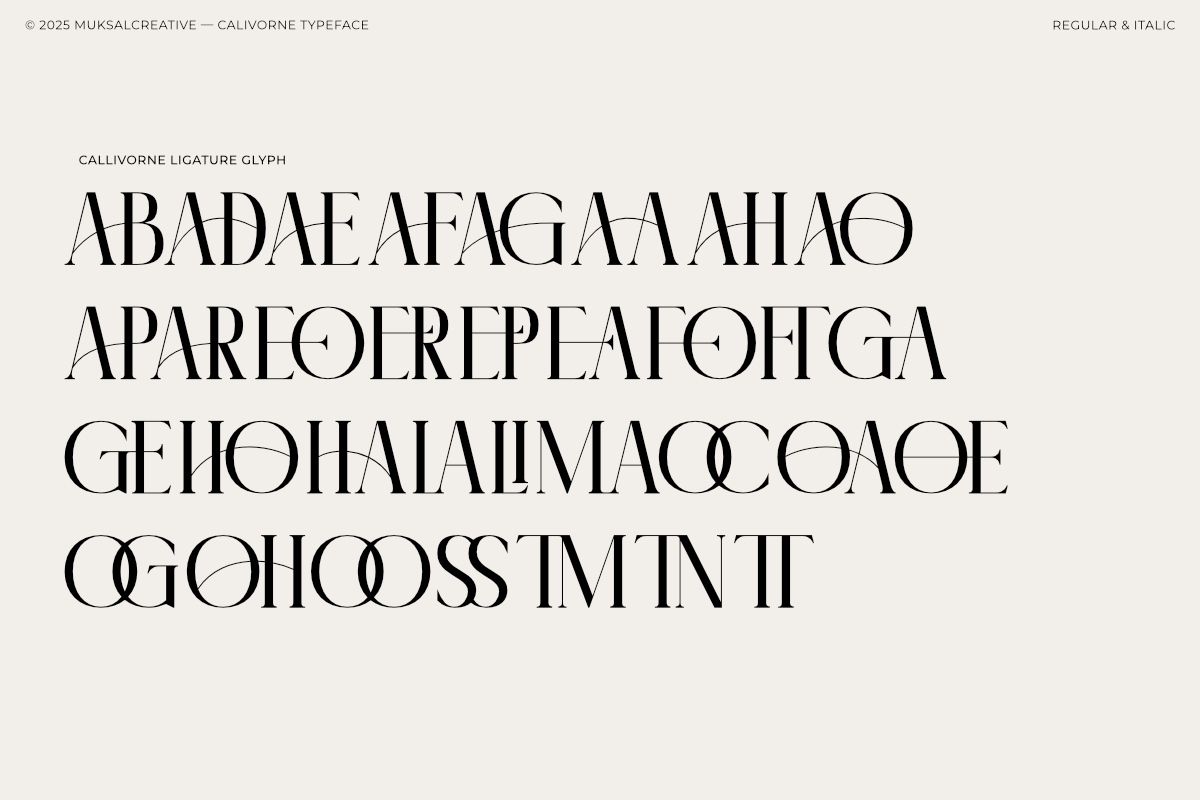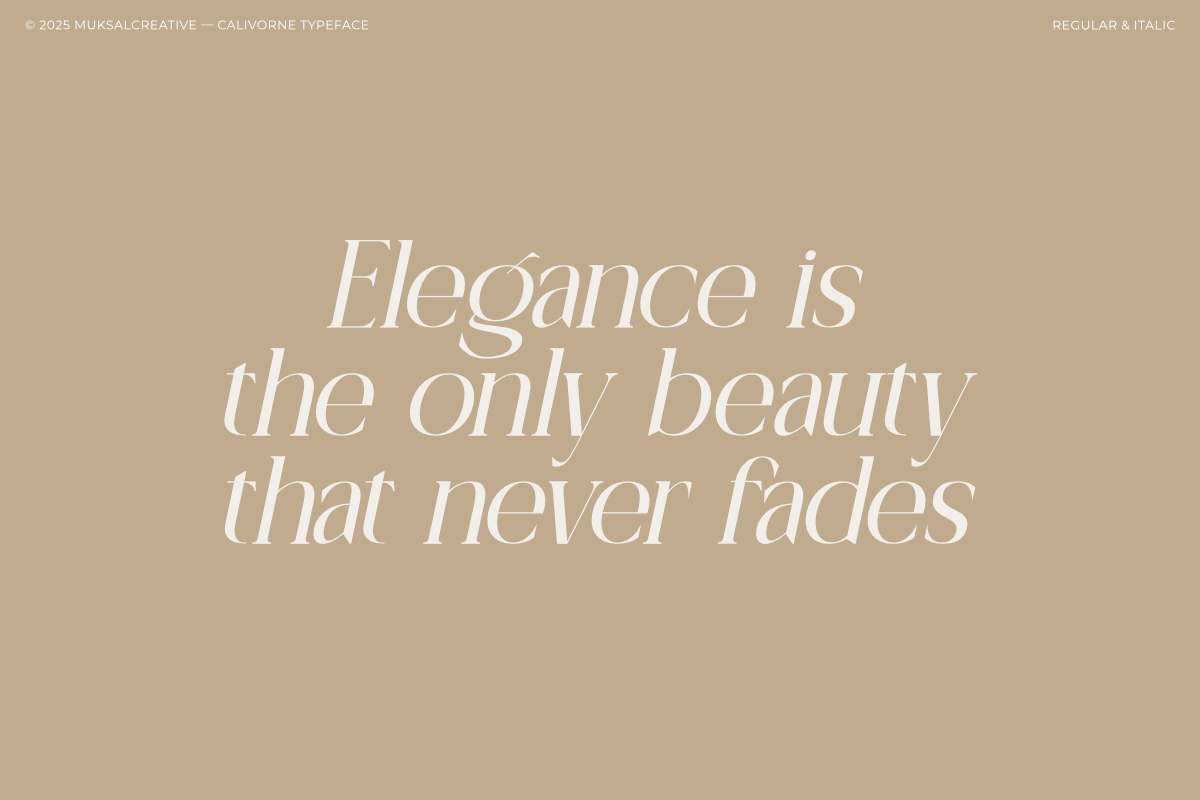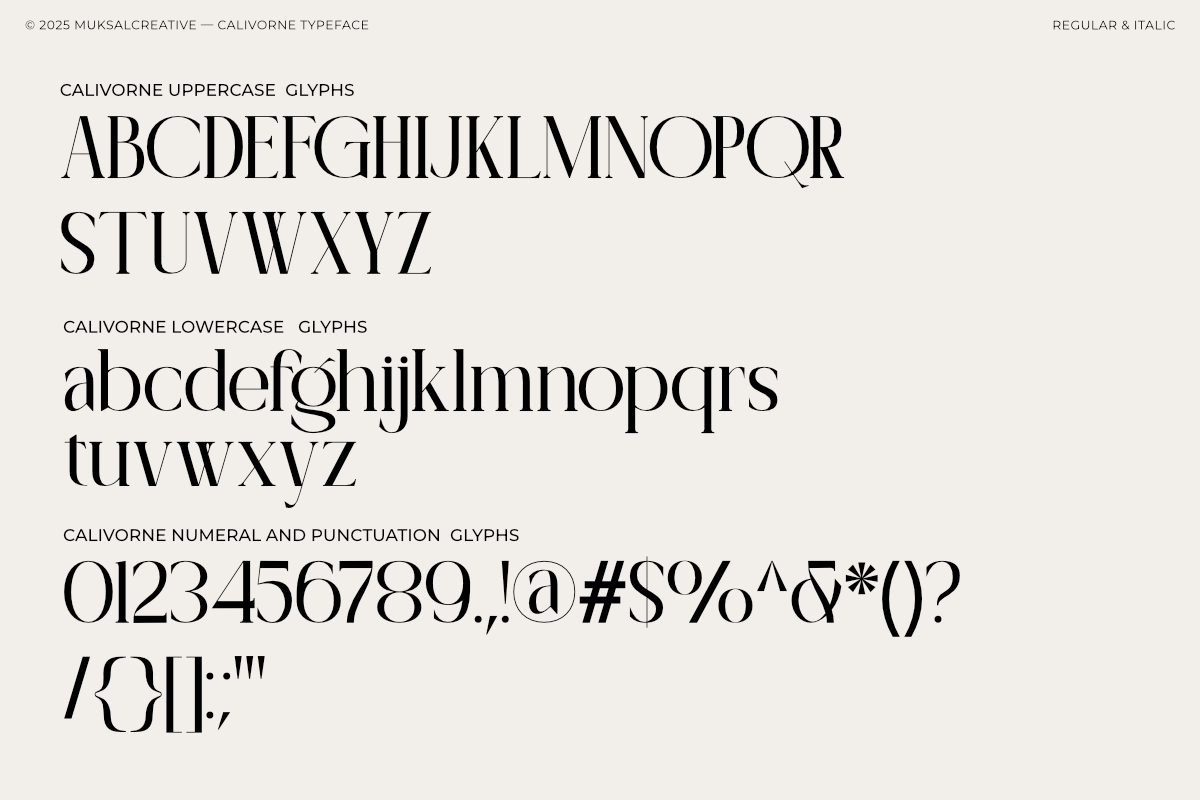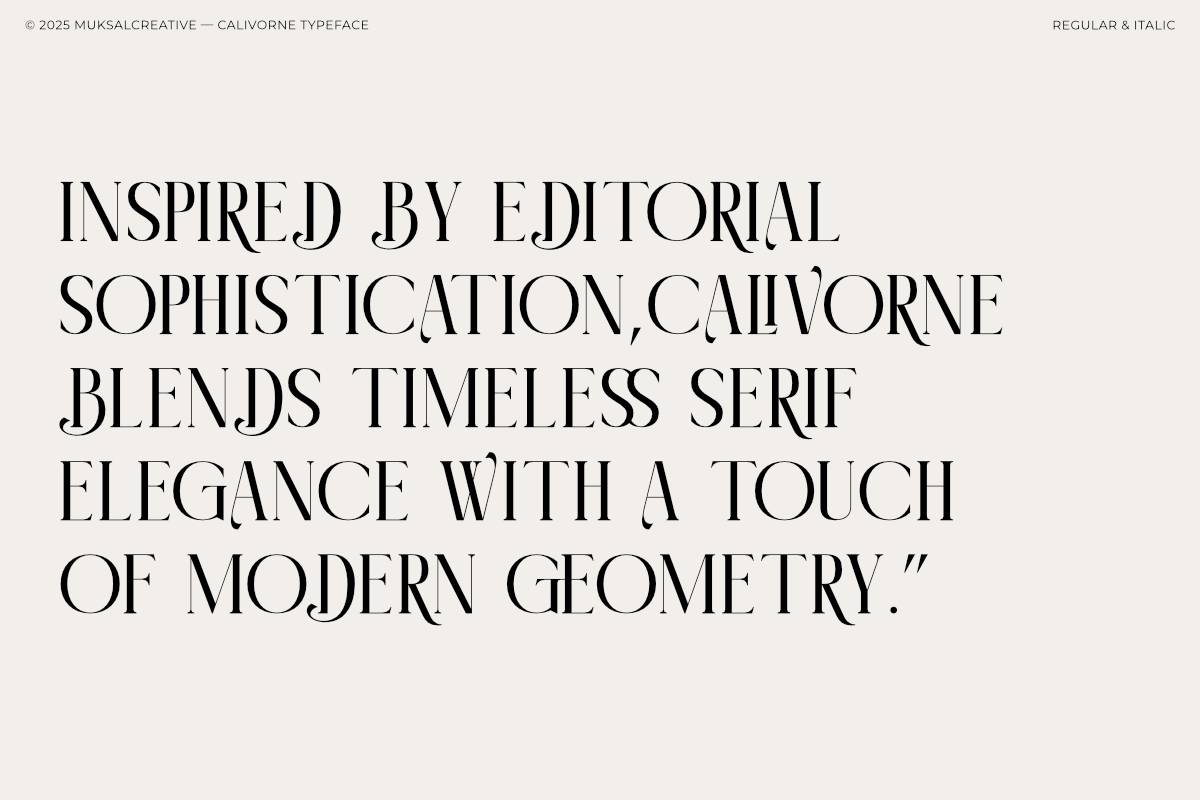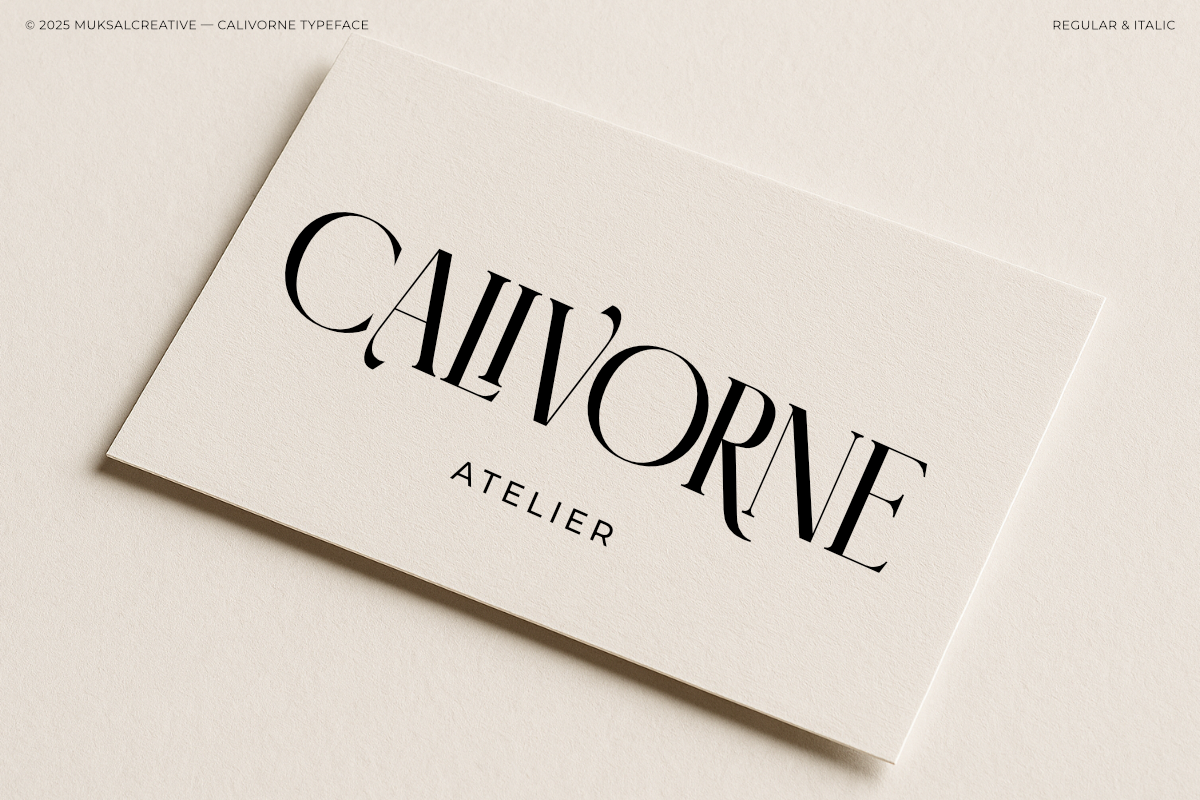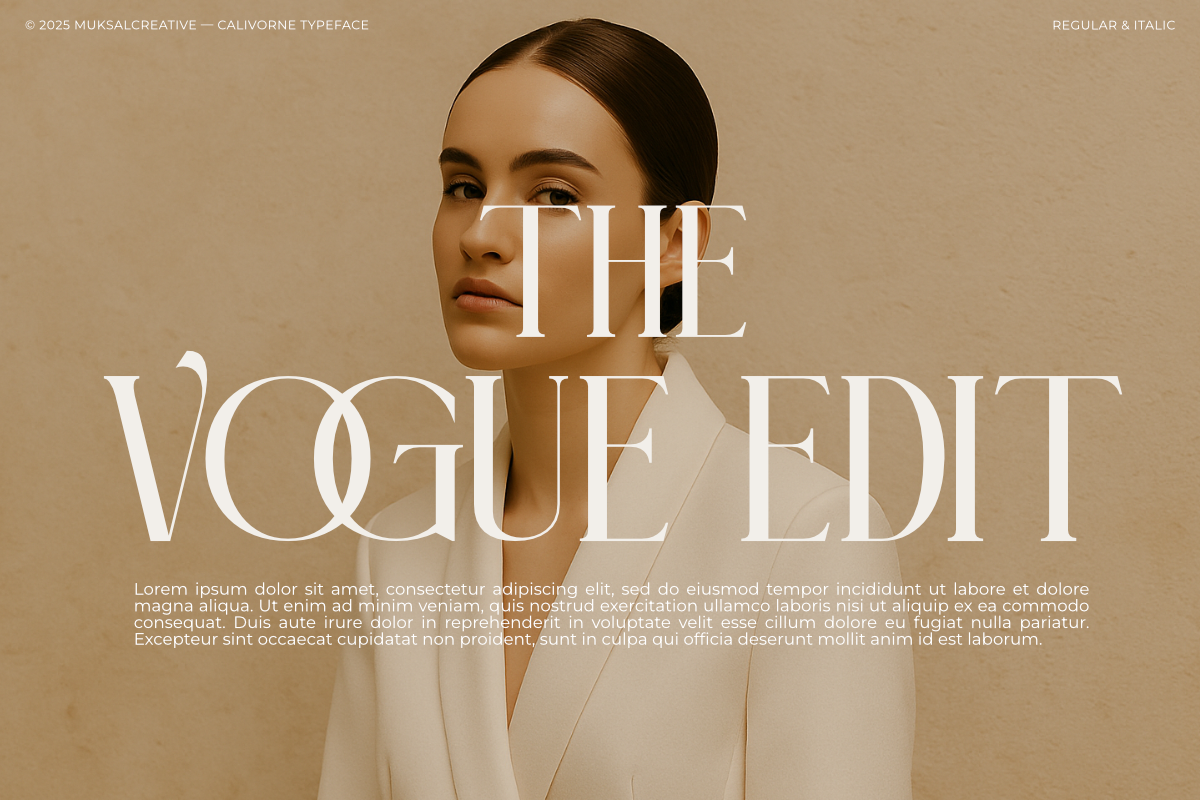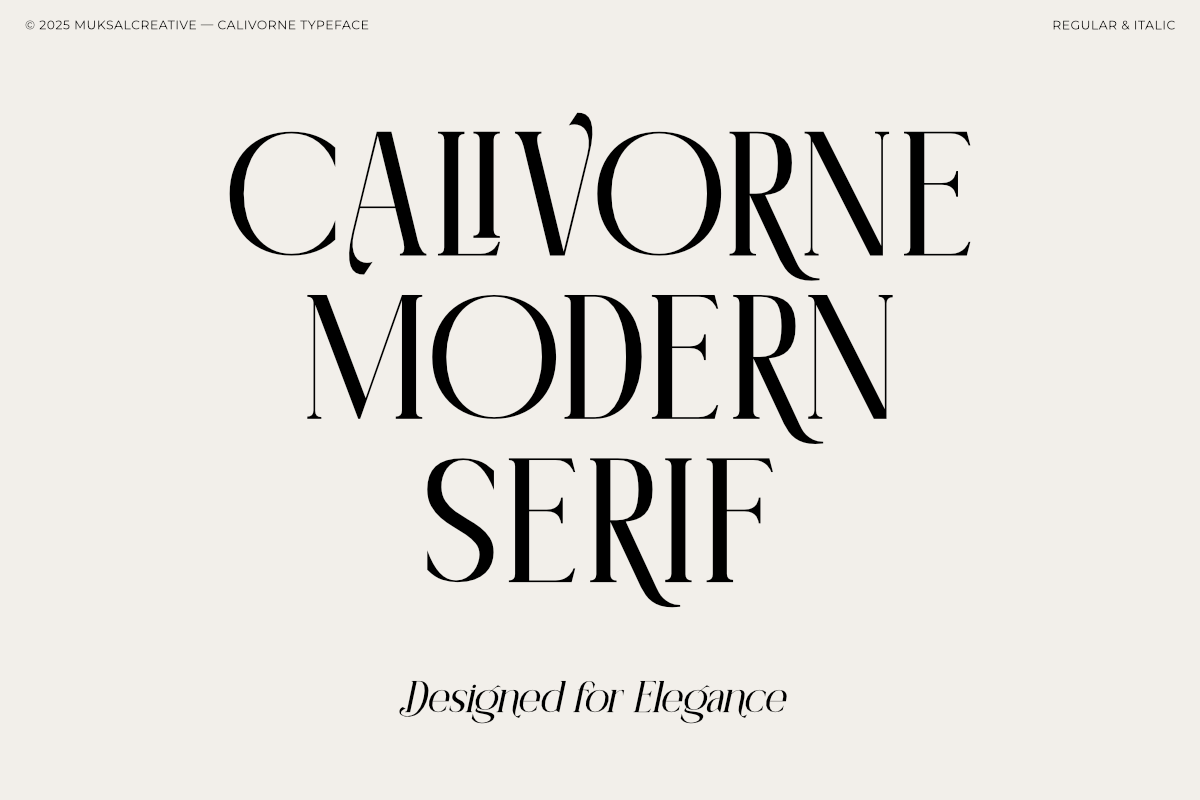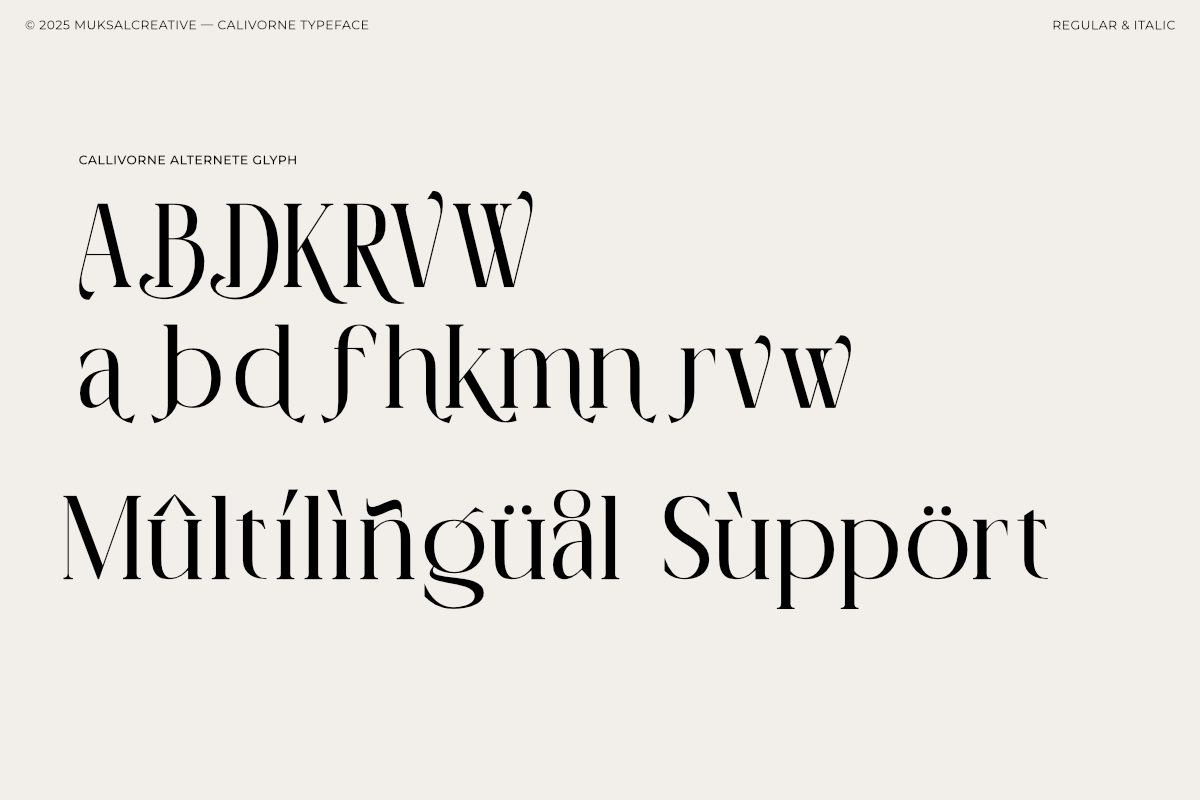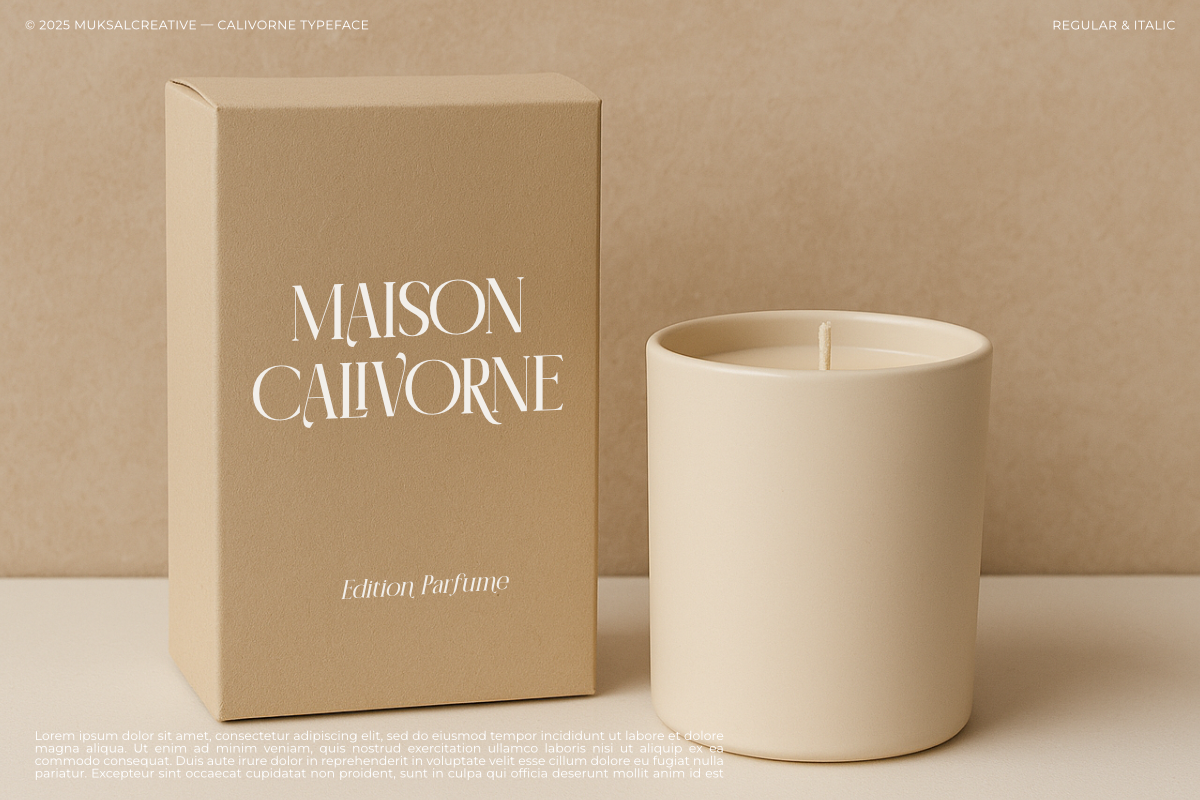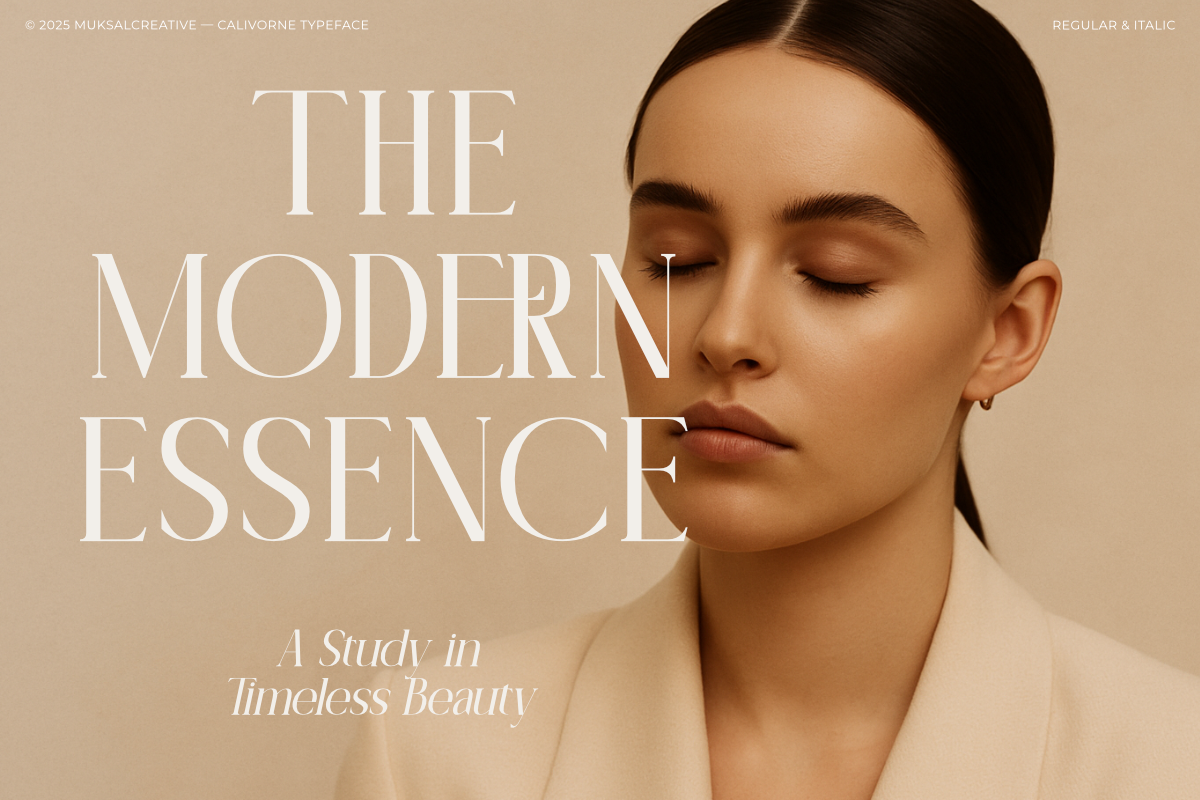
Calivorne - Modern Elegant Serif
Calivorne is a timeless serif typeface that blends classic refinement with modern sophistication. Designed with graceful curves and high contrast strokes, it brings a sense of editorial beauty and luxury to any visual project. Its balanced proportions and elegant letterforms make it ideal for fashion branding, magazine layouts, packaging, and refined logo design.
Featuring two styles — Regular and Italic, Calivorne offers flexibility for both display and body text compositions. Each style includes a collection of ligatures and alternate characters, adding unique personality and fluidity to your typography work. Whether you’re crafting a minimal brand identity or a high-end editorial title, Calivorne delivers enduring elegance in every letter.
Features: Font formats: OTF, TTF, WOFF 2 styles: Regular & Italic Uppercase & lowercase letters Numbers & punctuation Ligatures & alternates Multilingual support Perfect for logos, magazines, and luxury packaging